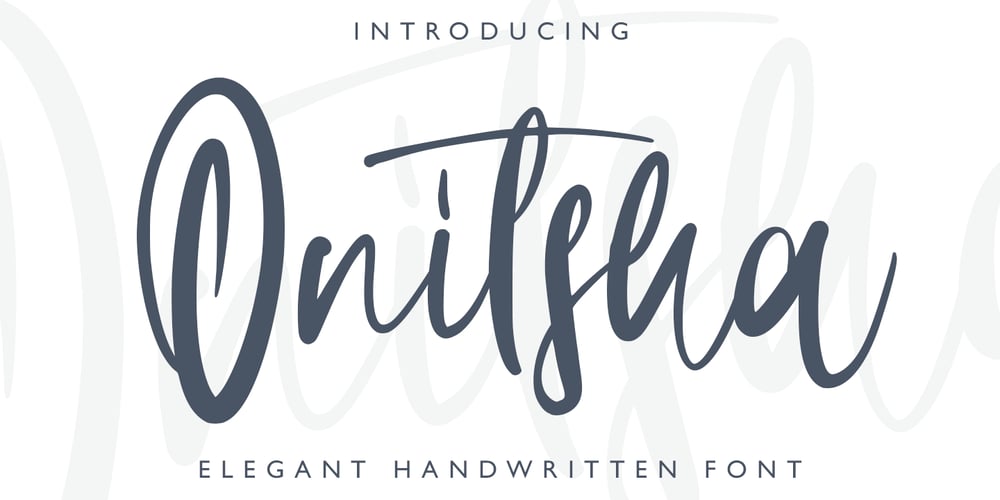
Onitsha
Onitsha font
Onitsha Font Family was designed by Asep Rendi and published by Arendxstudio. Onitsha contains 1 styles and family package options. Introducing a new font called Onitsha – Handwritten Font inspired by urban fonts with sharp and beautiful letters that create fonts that are modern, trendy and elegant.Onitsha came with opentype features such stylistic alternates, stylistic sets & ligatures good for logotype, poster, badge, book cover, tshirt design, packaging and any more.Features : • Character Set A-Z • Numerals & Punctuations (OpenType Standard) • Accents (Multilingual characters) • Ligature